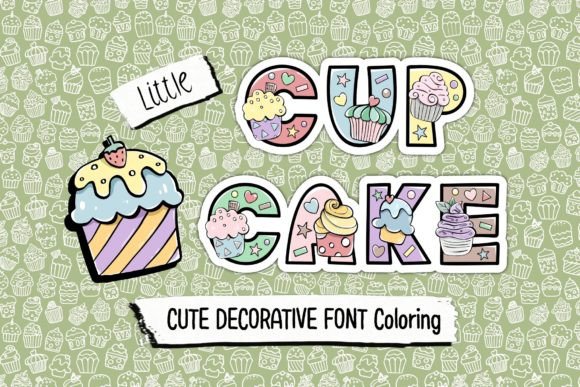
Looking for the perfect font to add a touch of sweetness to your project? Look no further than Little Cupcake Font! Created by 18CC FONTs, this decorative font is the perfect fit for a variety of uses.
One of the standout features of Little Cupcake Font is its versatility. It's the best font for number tattoos, allowing you to showcase important dates or special numbers in a fun and whimsical way. But it's not just limited to tattoos – this font is also perfect for coloring pages, children's books, and any project that needs a touch of playfulness.
But that's not all – Little Cupcake Font is also a great choice for social media graphics, adding a pop of personality to your posts. And if you're a crafty DIY enthusiast, this font is a must-have for your toolkit. Use it to create custom cards, invitations, and more.
So why choose Little Cupcake Font? First and foremost, it's a font that makes you smile. With its playful curves and adorable details, it's sure to add a touch of whimsy to any project. But beyond that, it's a font that offers endless creative possibilities. Whether you're a designer, blogger, or simply looking to add a bit of fun to your personal projects, Little Cupcake Font is the perfect fit.
So go ahead, give it a try! With Little Cupcake Font, the sky's the limit when it comes to creativity. Whether you're creating custom graphics for your business or adding a personal touch to a special project, this font is sure to delight.